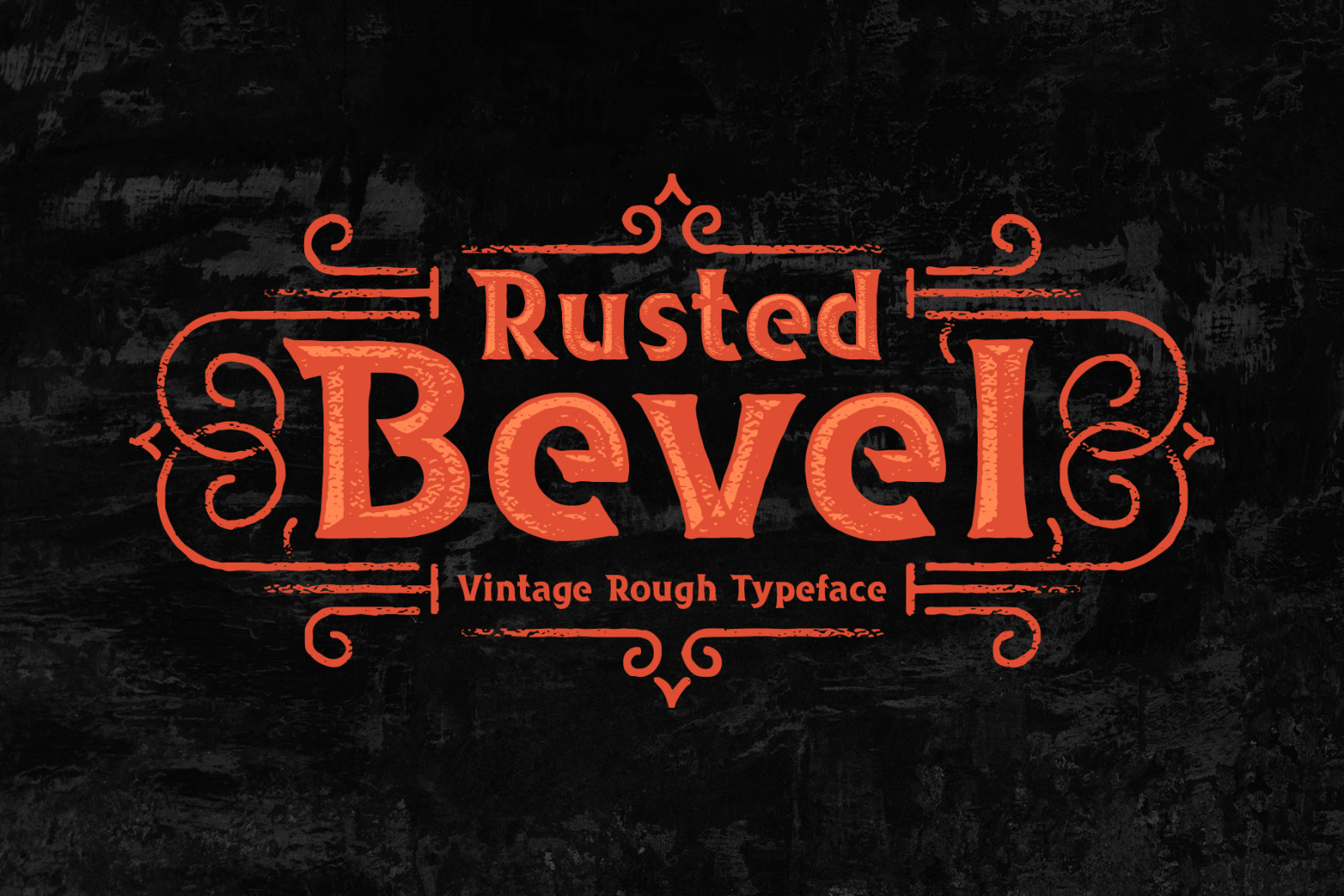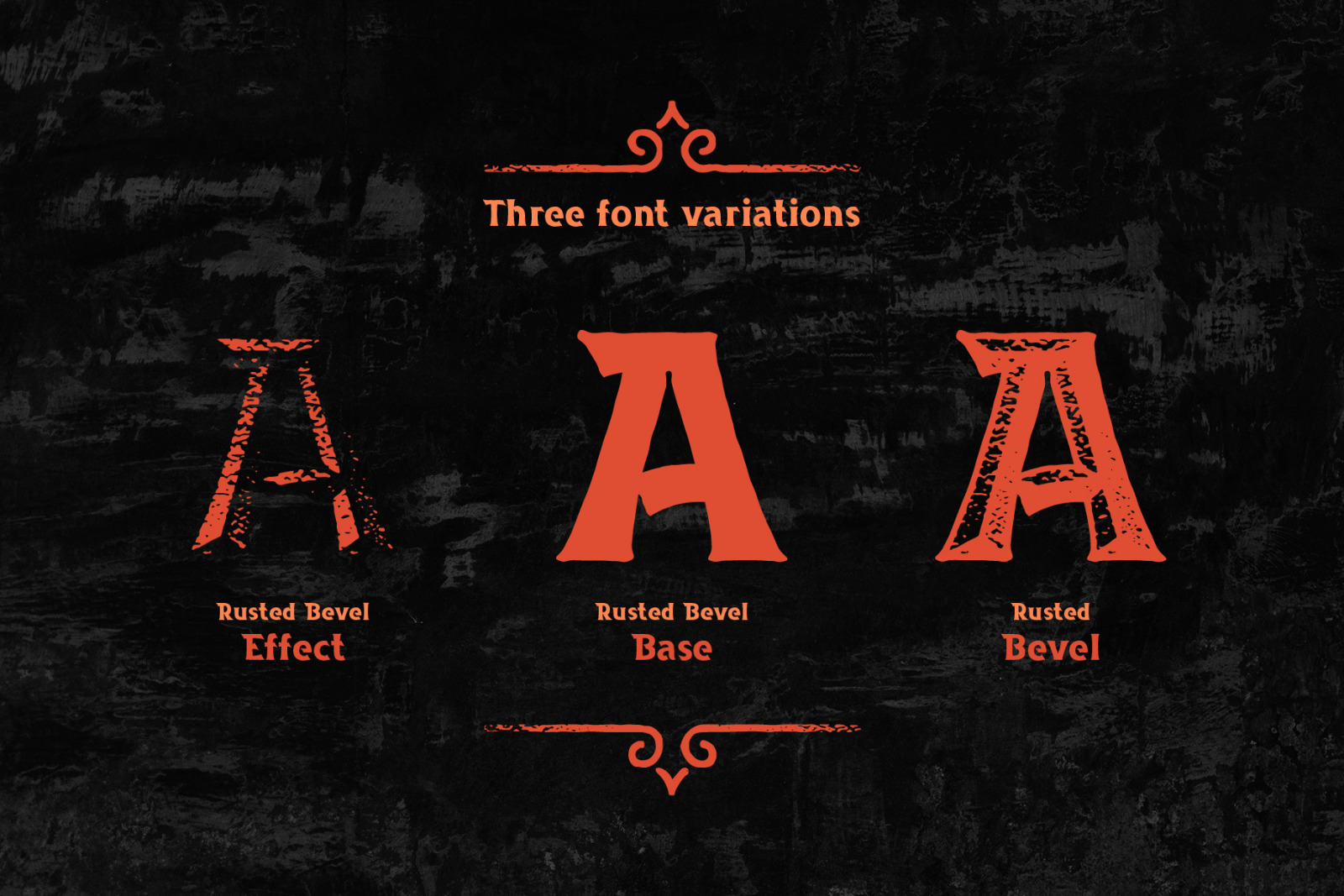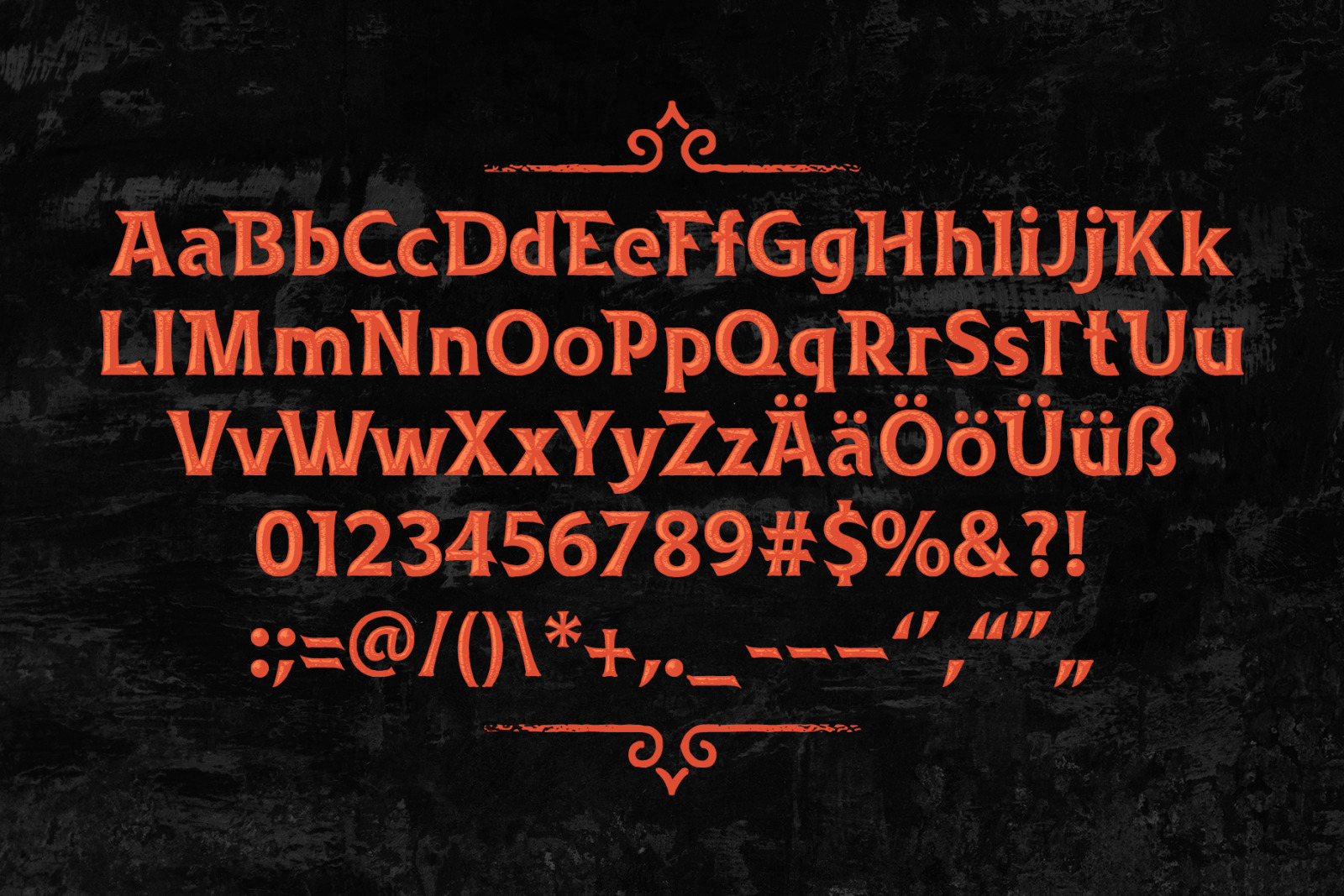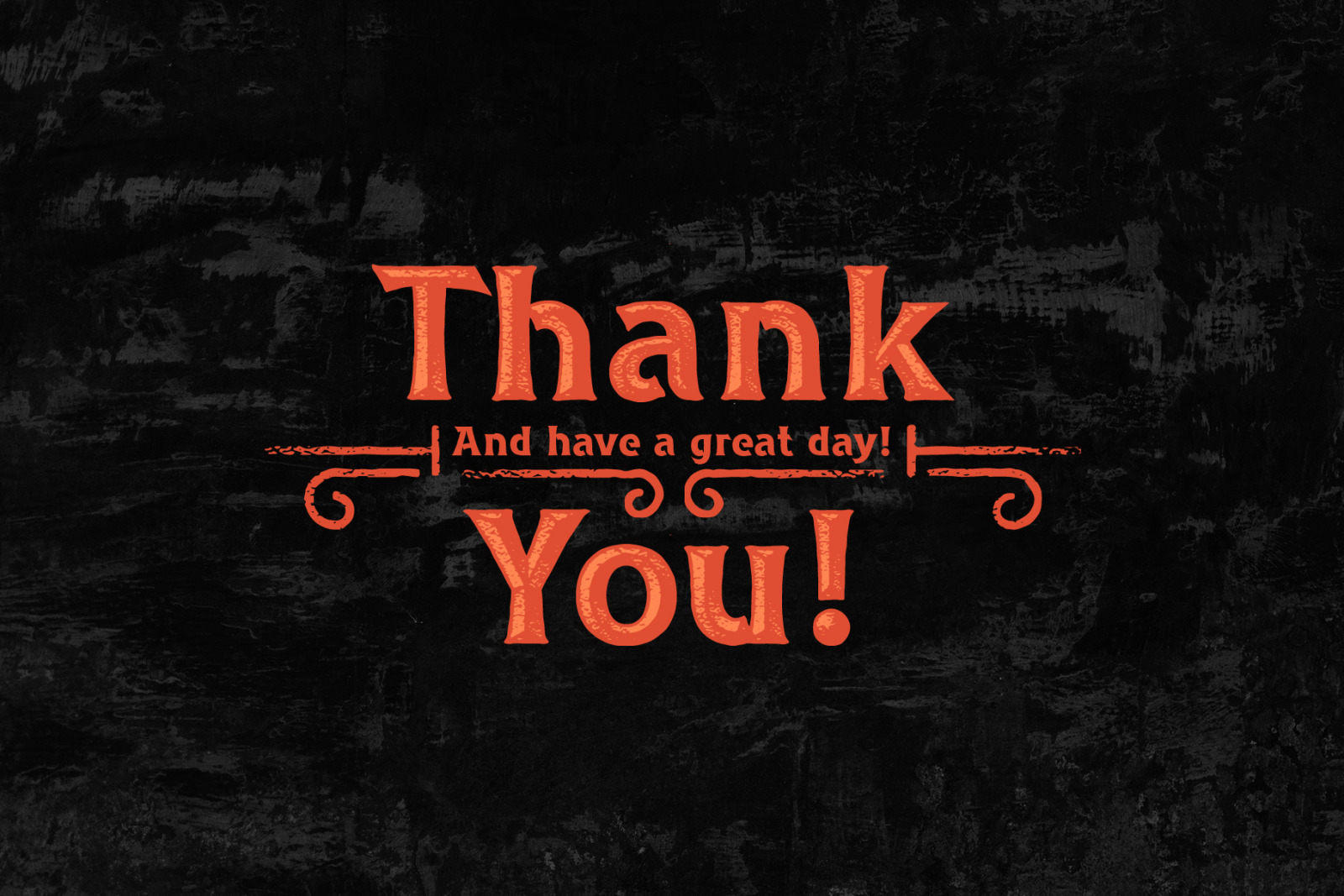
Rusted Bevel Typeface
Hi! Introducing a vintage rough font set "Rusted Bevel". It includes three font files for combining and easy recoloring a textured bevel effect. Also, as a bonus, you will get a lettering poster with ornate (3rd screenshot) in vector eps format. All available characters and supported languages you can see on the 4th screenshot.